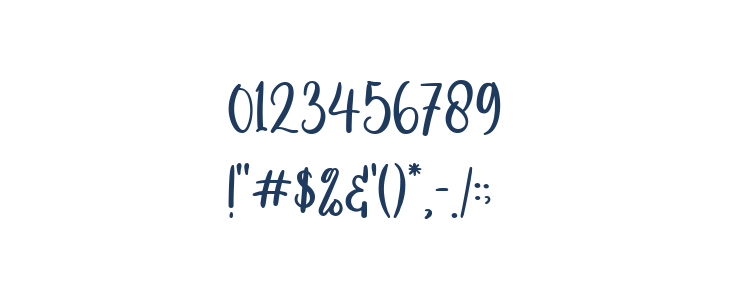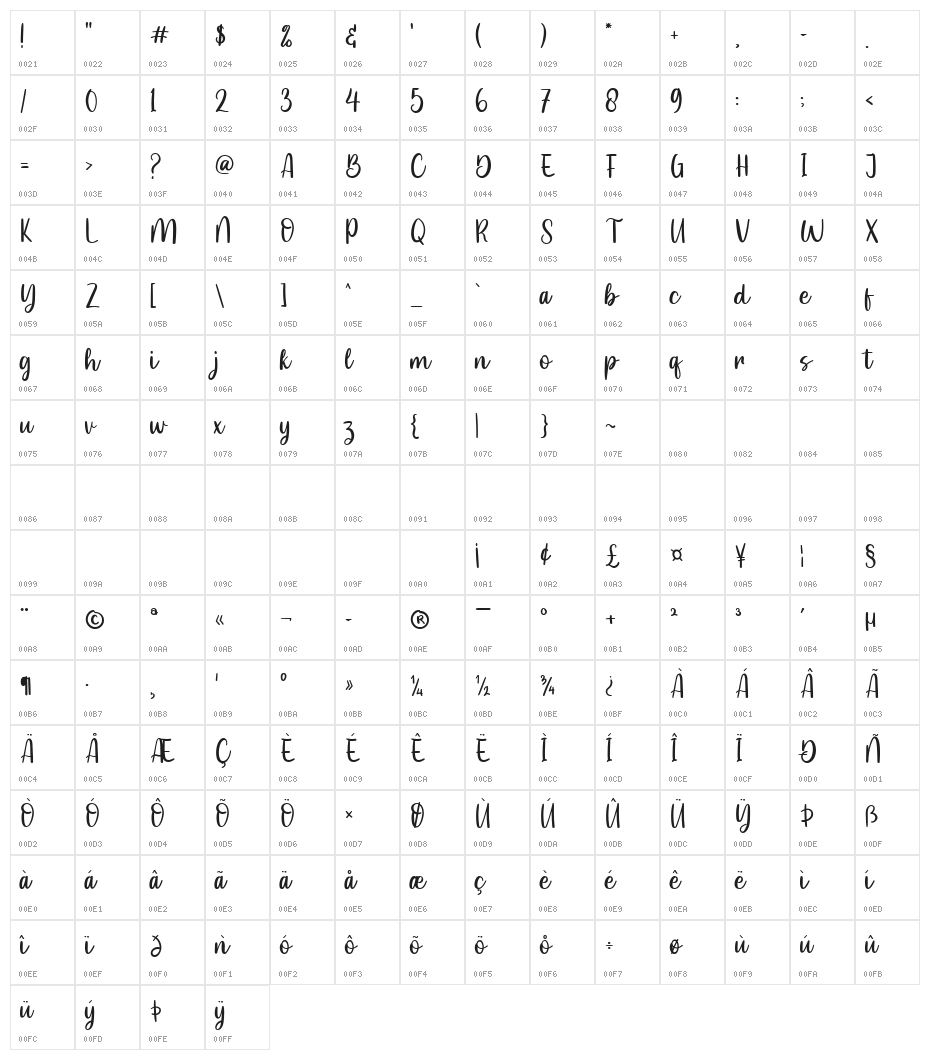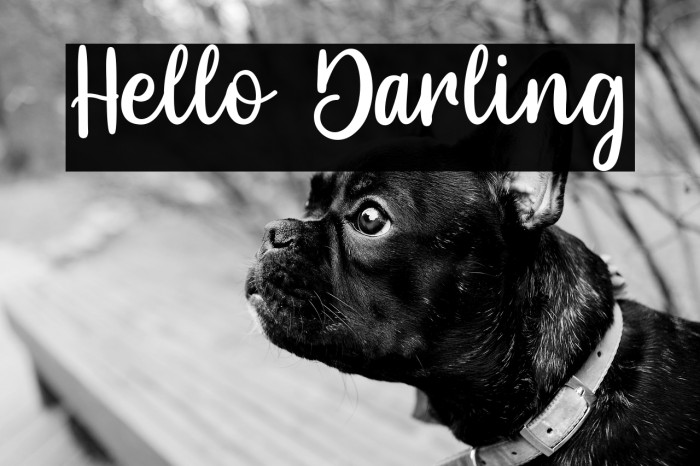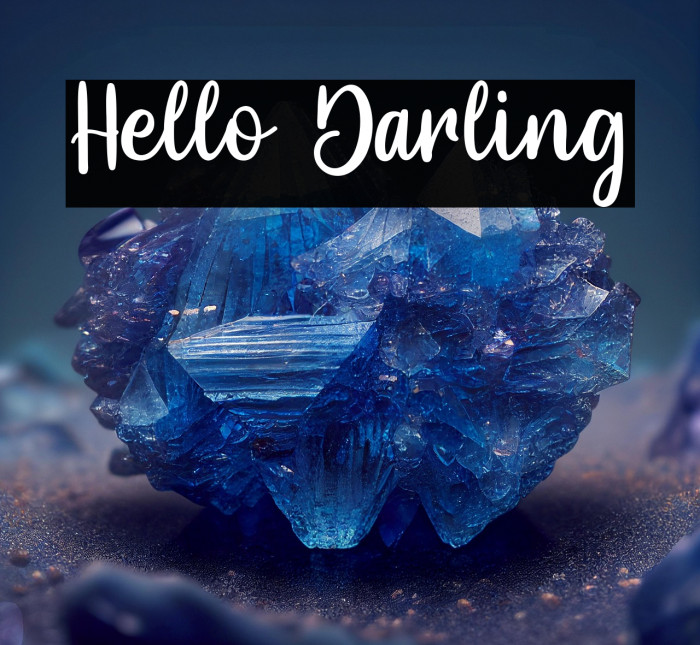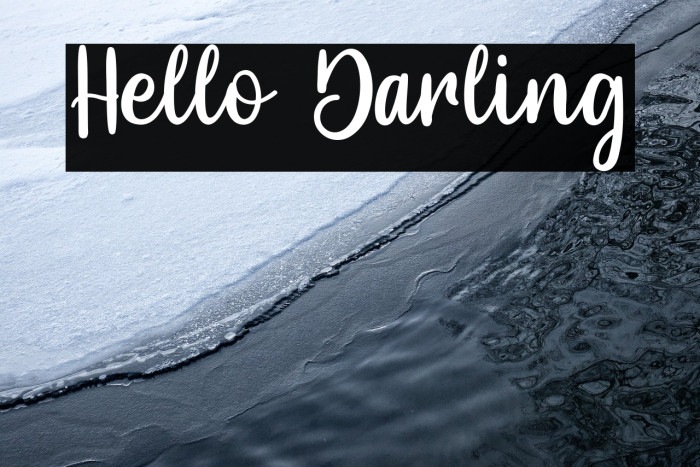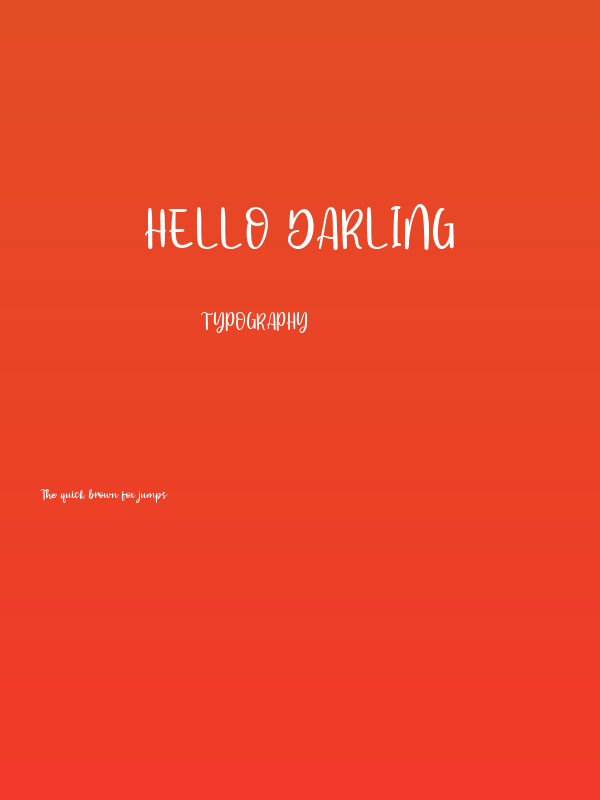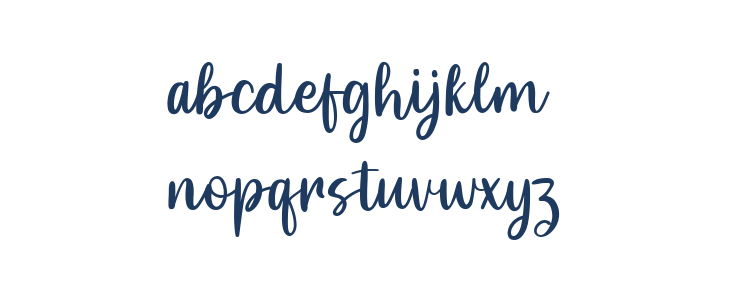
Hello Darling Font
Hello Darling Description
This font exudes a playful and whimsical charm, characterized by its flowing, handwritten style. The letters are crafted with a smooth, continuous stroke, giving it a casual and friendly appearance. The uppercase letters are bold and slightly elongated, while the lowercase letters maintain a consistent flow with gentle curves and loops. The numbers and special characters are designed to match the overall aesthetic, ensuring a cohesive look. This font is perfect for projects that require a personal touch, such as invitations, greeting cards, or branding materials that aim to convey warmth and approachability.
| Overall Style | Whimsical |
| Proposed Projects | Ideal for invitations, greeting cards, personal branding, and creative projects seeking a friendly touch. |